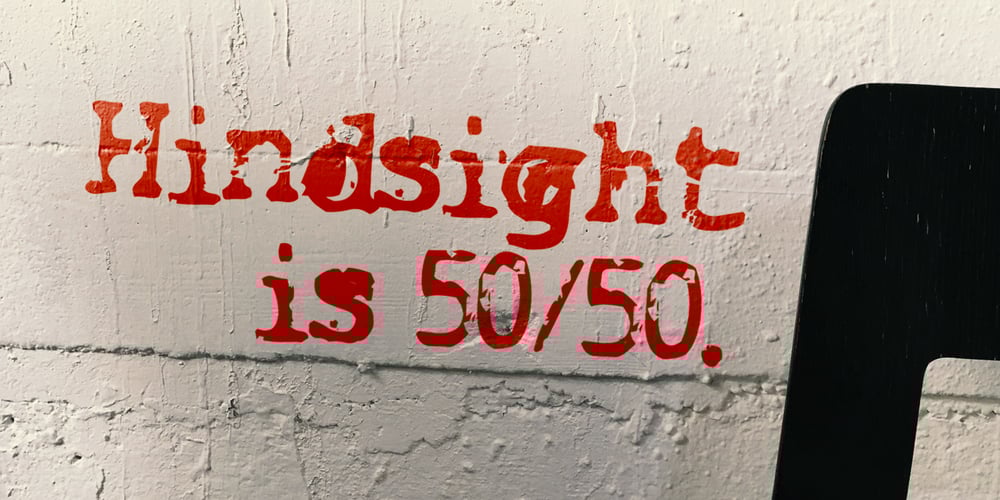
Smash
Smash font
Smash Font Family was designed by Todd Dever and published by Cool Fonts. Smash contains 2 styles and family package options. Smash is nicely distressed and has cracks, chunks and blobs. Some people think it looks like a crappy FAX or broken typewriter. It is compatible with Overexposed, so you can mix and match letters so you don’t have two of the same messed up letters in a row.(Pretty cool huh?)